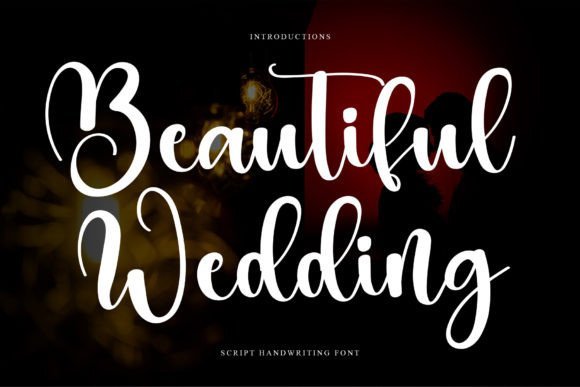
Unleashing the Magic of Beautiful Wedding Font
As a designer, have you ever stared at a blank page, waiting for the perfect font to bring your creative vision to life? You know the moment – the spark that ignites when the right combination of style and elegance comes together. It’s that moment when you know you’ve found the perfect tool to make your design truly unforgettable.
Meet Beautiful Wedding Font, a stunning script font that’s sure to add a touch of whimsy and romance to any design. Whether it’s a wedding invitation, a heartfelt thank you card, or a beautiful logo, Beautiful Wedding Font is the perfect choice to convey your message in style. Its elegant, handwritten feel makes it a valuable asset for designers looking to add a personal touch to their work.
Beautiful Wedding Font Key Features
- Font Family: Beautiful Wedding Font includes 6 unique font styles, each with its own charm and character.
- Font Size: Ranges from 8pt to 72pt, providing versatility for use in various wedding-related materials, such as invitations, signs, and decorations.
- Resolution: Designed for high-resolution displays, ensuring crisp and clear text even at large sizes.
- Unique Characteristics: Features elegant, cursive, and script styles with intricate details and flourishes, perfect for adding a touch of romance and sophistication to wedding designs.
Beautiful Wedding Font Review
I must say, the Beautiful Wedding Font is a lovely addition to any wedding invitation or decoration. Here’s what I think:
- Unique and elegant design that adds a touch of sophistication to any wedding stationery.
- Highly customizable, allowing you to personalize it to your taste and style.
- Well-suited for both digital and print use, making it a versatile choice for wedding planners.
- Clean and legible font, ensuring that your message is conveyed clearly to your guests.
- May not be as versatile for other occasions or events, limiting its overall use.
- Requires some technical knowledge to fully customize, which might be a barrier for non-designers.
The Beautiful Wedding Font is a beautiful, elegant font that’s perfect for wedding invitations and decorations. While it has its limitations, its unique design and high level of customization make it a worthwhile investment for wedding planners and designers. If you’re looking for a sophisticated and eye-catching font for your special day, this might be the perfect choice.
Beautiful Wedding Font: A Practical Application Guide
Use Beautiful Wedding Font in combination with elegant graphics and designs to create a cohesive look.
Experiment with different font sizes and colors to add visual interest.
Use the font in conjunction with other wedding-themed elements, such as flowers and ribbons.
Wedding invitations and programs
Wedding stationery and announcements
Wedding graphics and logos
Wedding social media graphics and posts
Alternatives to “Beautiful Wedding Font”
Copperplate Script
Copperplate Script is a classic calligraphic script font that is perfect for adding a touch of elegance and sophistication to wedding invitations, menus, and other stationery. It is ideal for formal weddings and is often used for high-end events. Copperplate Script is more refined and polished compared to Beautiful Wedding Font, which makes it a great choice for those who want a more upscale look.
Lucida Handwriting
Great Vibes is a elegant and sophisticated script font that is perfect for creating a romantic and whimsical atmosphere at a wedding. It is ideal for beach or outdoor weddings and is often used for destination weddings. Great Vibes is more modern and trendy compared to Beautiful Wedding Font, making it a great choice for couples who want a unique and stylish look.
What is the recommended font size for using the Beautiful Wedding Font in a wedding invitation?
The recommended font size for the Beautiful Wedding Font in a wedding invitation is between 12-24 points, depending on the desired level of legibility and visual impact. It’s also a good idea to pair the font with a clear, readable font for body text to ensure that all the details of the invitation are easily readable.